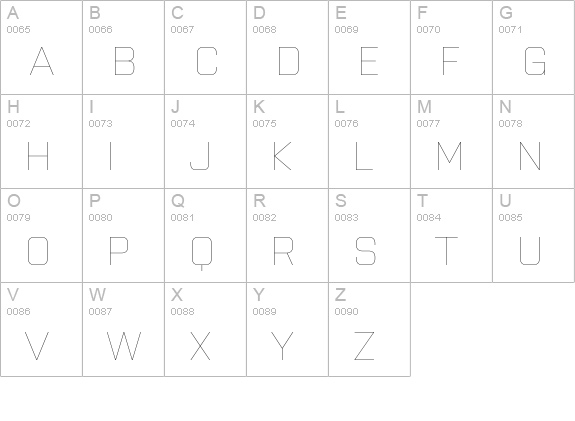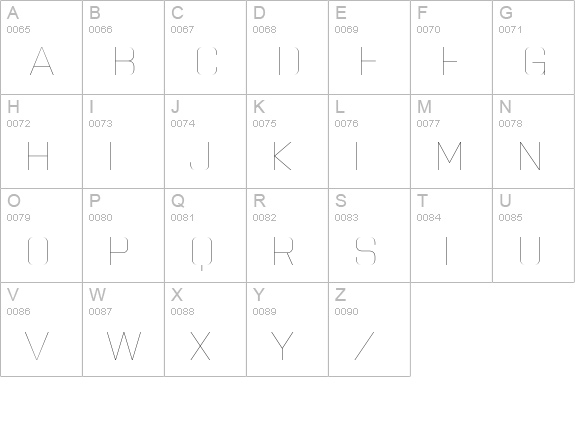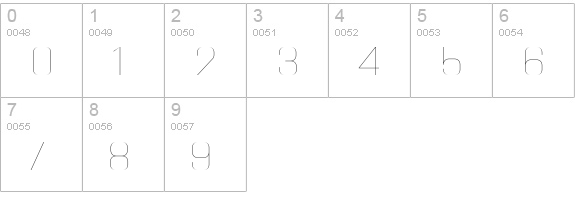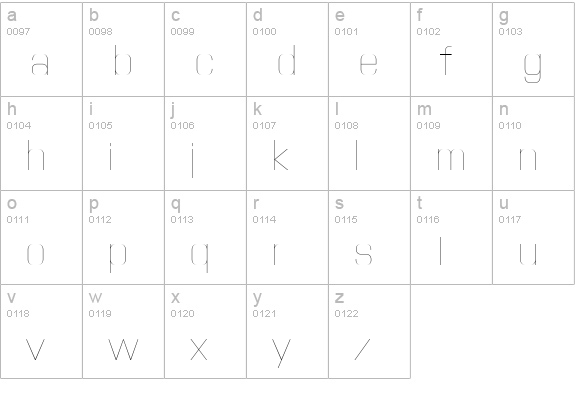
Purista Thin Font Details
Purista Thin is a delicate, low-contrast variant in the Purista typeface family \xE2\x80\x94 well suited to fashion editorial, minimal branding, and high-contrast display.
Purista Thin is a sleek and elegant typeface that exudes sophistication and modernity. With its clean lines and minimalistic design, this font is perfect for projects that require a touch of refinement and simplicity. The thin weight of Purista lends an airy and delicate quality to any text, making it ideal for use in branding, editorial design, and more. What sets Purista Thin apart is not only its aesthetic appeal but also the fact that it is available for free. Yes, you read that right - you can download this exquisite font at no cost from FontsMarket.com. Whether you're a designer looking to add a touch of class to your creations or a writer in need of a stylish typeface for your work, Purista Thin is sure to exceed your expectations. Don't miss out on the opportunity to enhance your projects with this stunning and versatile font - download Purista Thin today and elevate your designs to new heights.